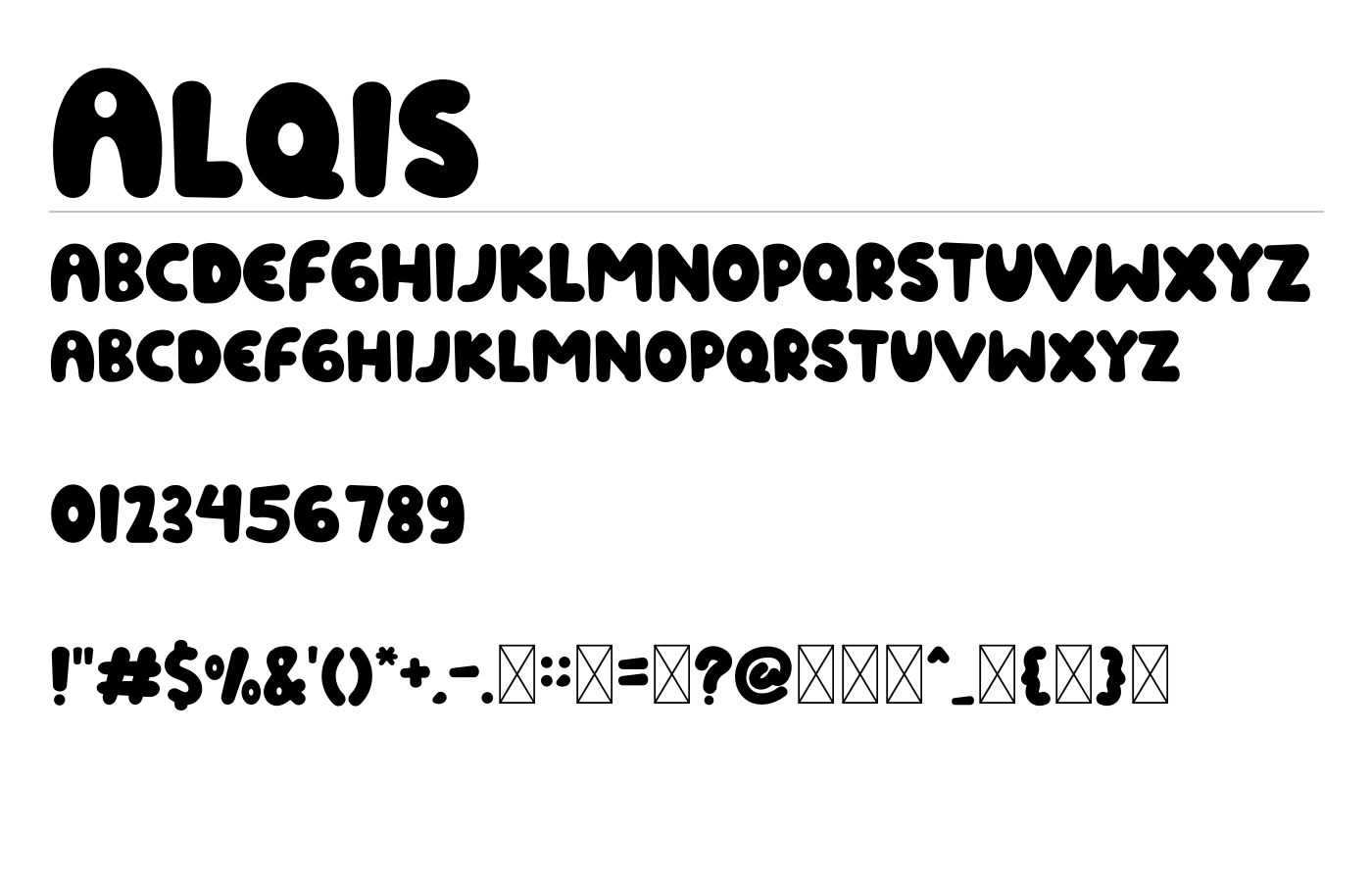
Alqis is a playful, bold sans serif font characterized by its rounded, chunky letterforms and consistent heavy weight. Its soft, friendly shapes and wide proportions give it a casual, approachable feel, making it well suited for fun branding, children’s content, and eye-catching headlines where a warm, informal tone is desired. This font works best in display contexts where a lively and energetic personality can shine through.
Alqis Font
About Alqis Font